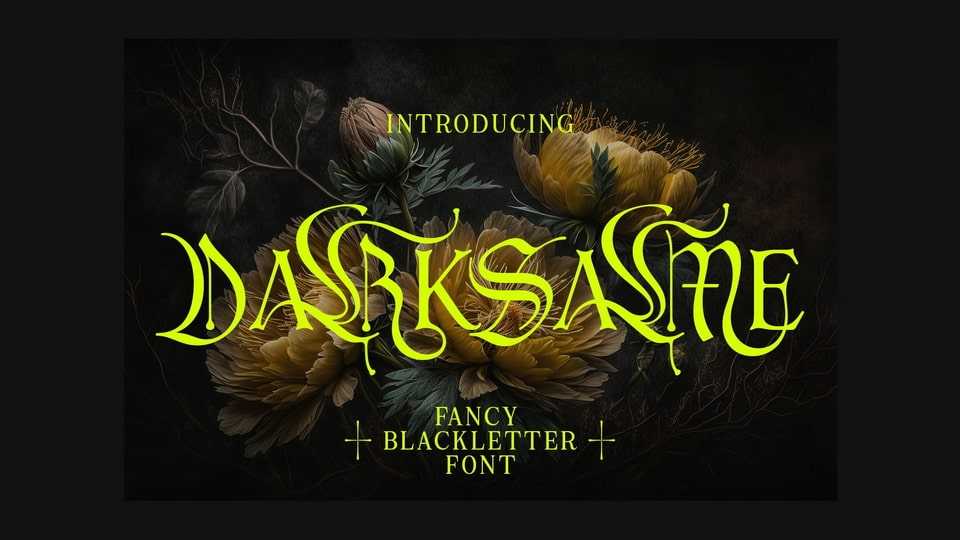
Download Dark Same font, a unique and versatile typeface that combines the striking and bold elements of blackletter with the elegant and refined features of a serif font. Dark Same font is perfect for anyone looking to add a touch of sophistication and style to their design projects.